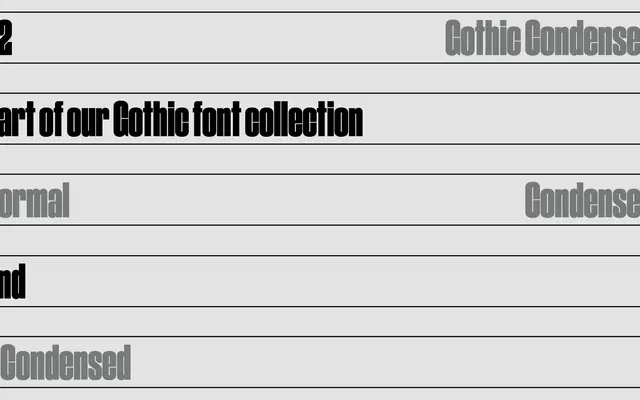
A2 Gothic Condensed
A2 Gothic Condensed specimen from A2-Type
A condensed grotesque in five weights, part of the A2 Gothic family, built around narrow proportions and exaggerated counters for headline use.
Part of the wider A2 Gothic grotesque family, this condensed cut trades the standard width for tight proportions and prominent counter shapes that hold up well at large display sizes. Five weights run from Regular through to Heavy, offering enough range for titling hierarchies without italic variants. The X Condensed cut extends the family further for situations demanding even tighter columns.
A condensed cut of a grotesque family, characterised by narrow proportions and exaggerated counters typical of condensed gothic sans-serif styles used in headline setting.